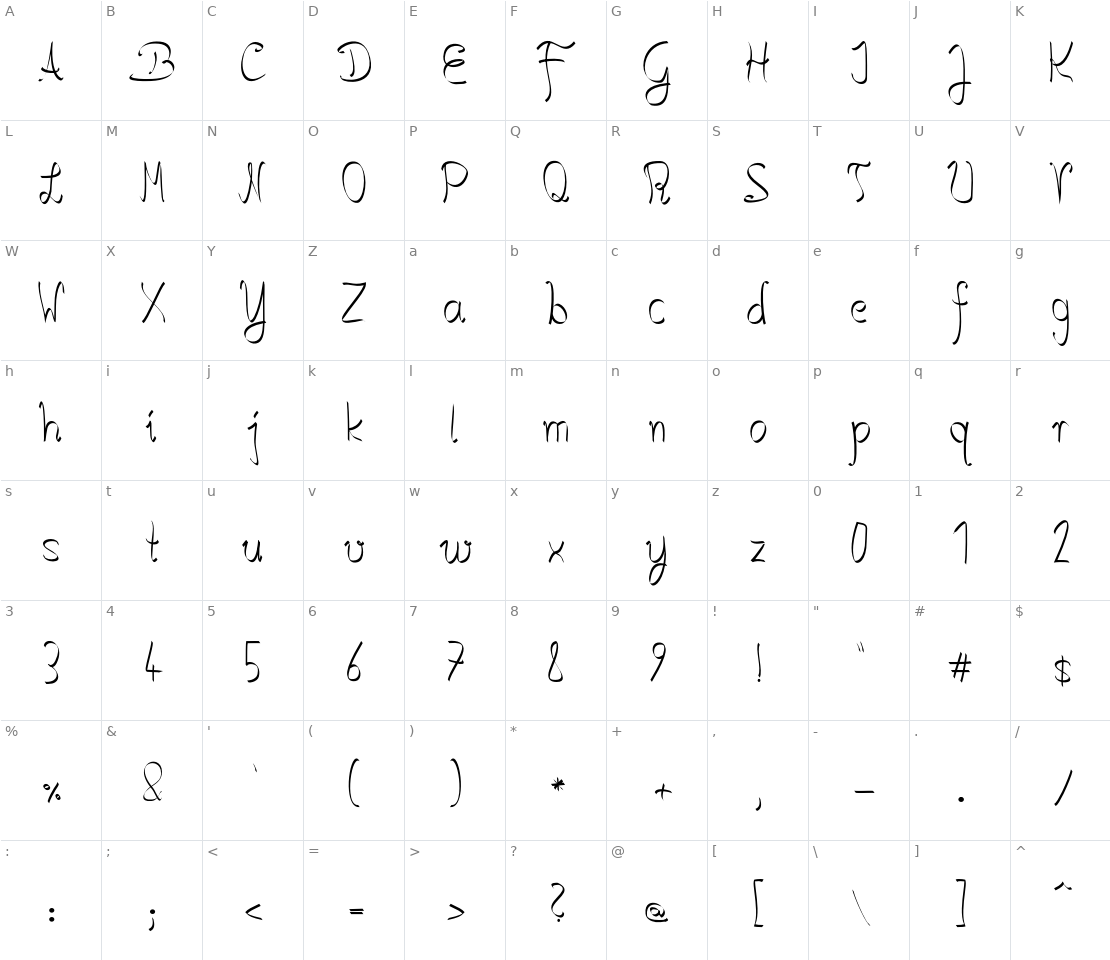
Salkin Handschrift
by Salkin-Typographie
Salkin Handschrift is a light, sketchy handwritten face from Salkin-Typographie that captures the relaxed imperfection of someone jotting notes with a fine-tipped pen. The thin strokes feel genuinely personal rather than digitally smoothed, with just enough inconsistency to stay believable. A good fit for personal branding, letters, journals, or any context where you want type that reads like real handwriting rather than a font pretending to be.